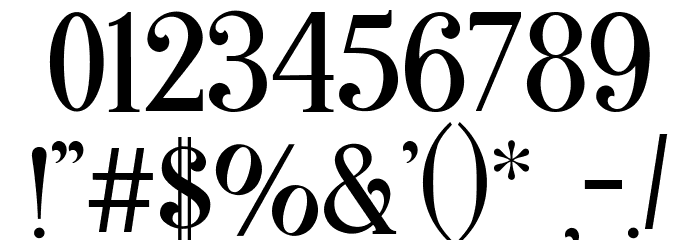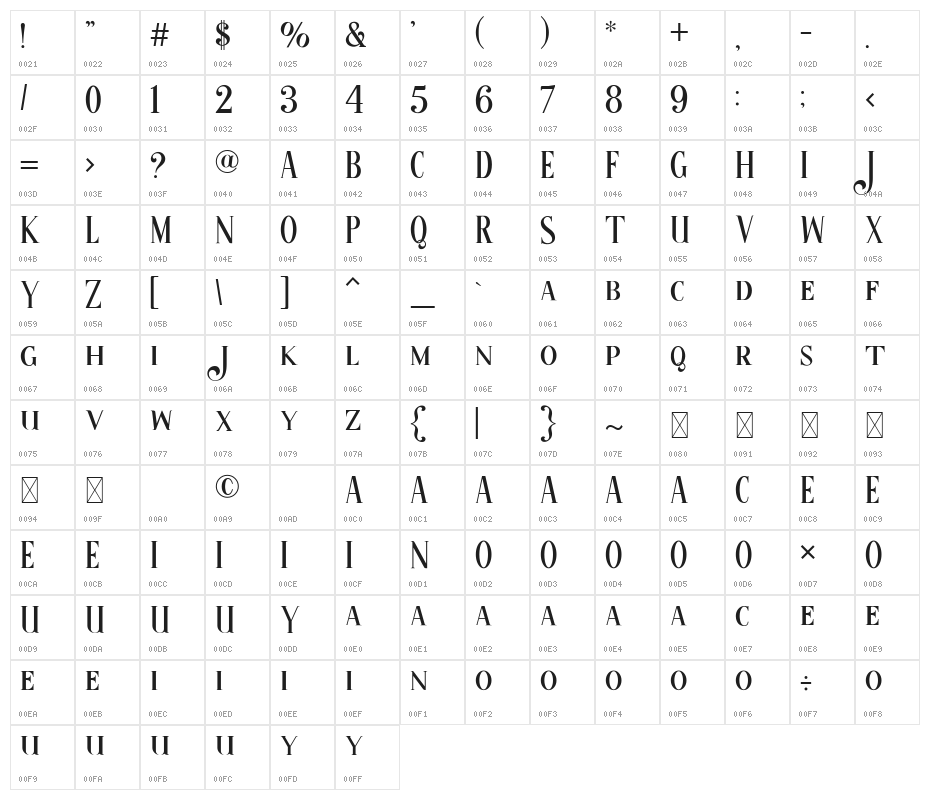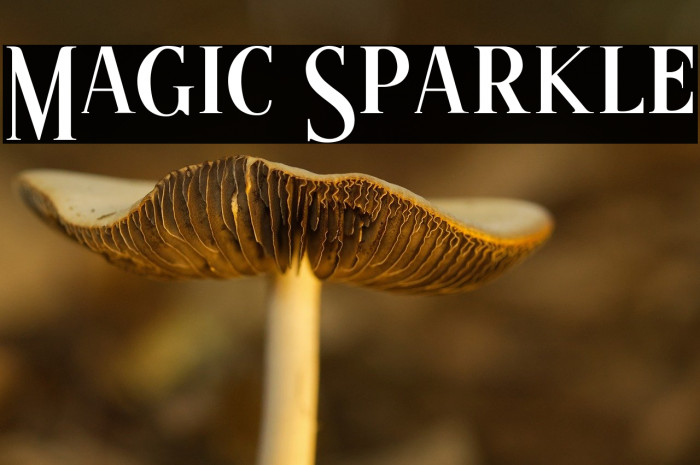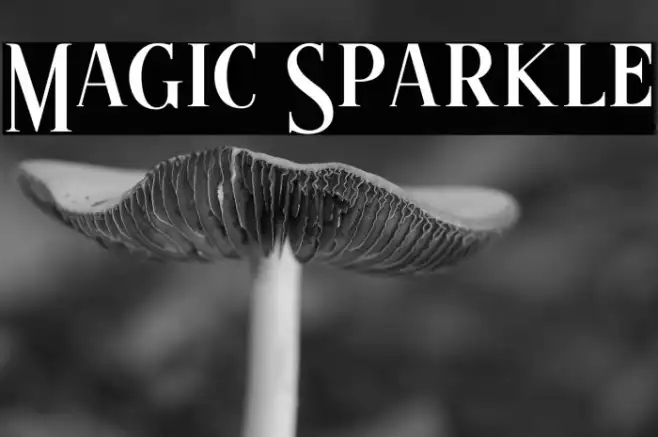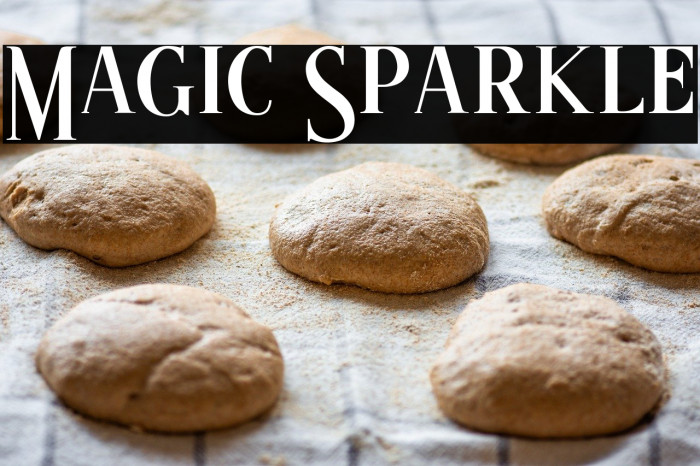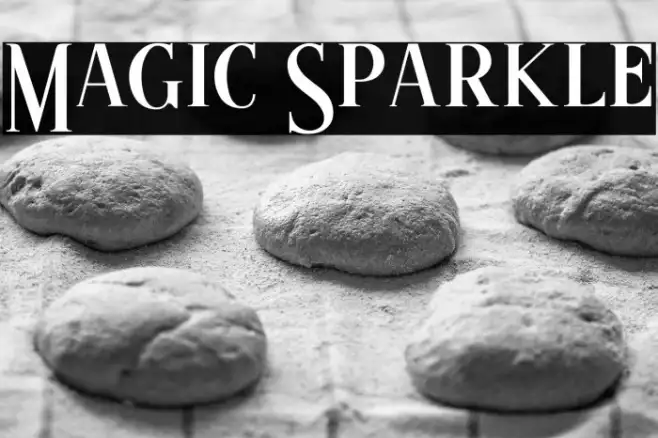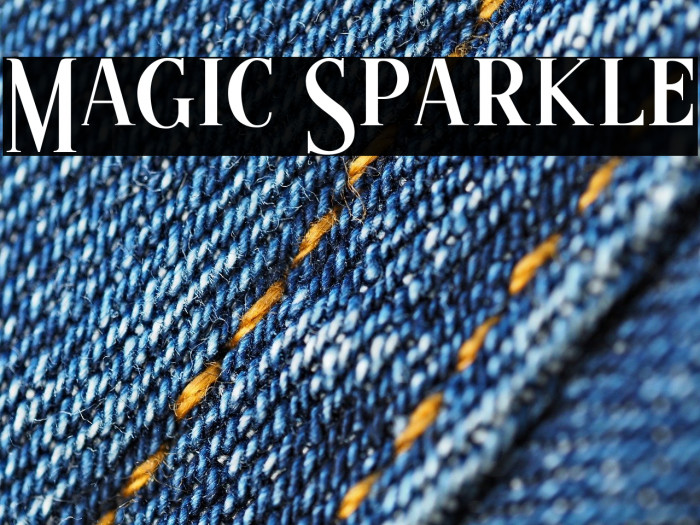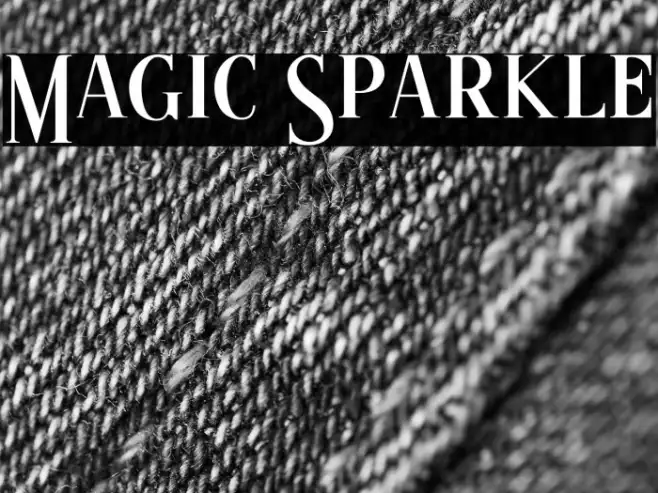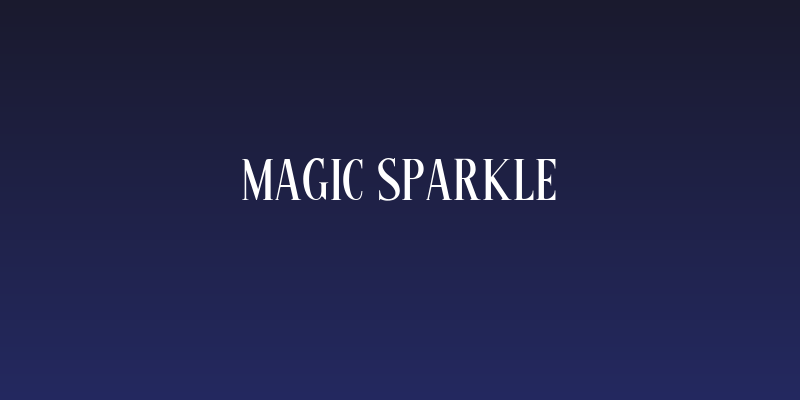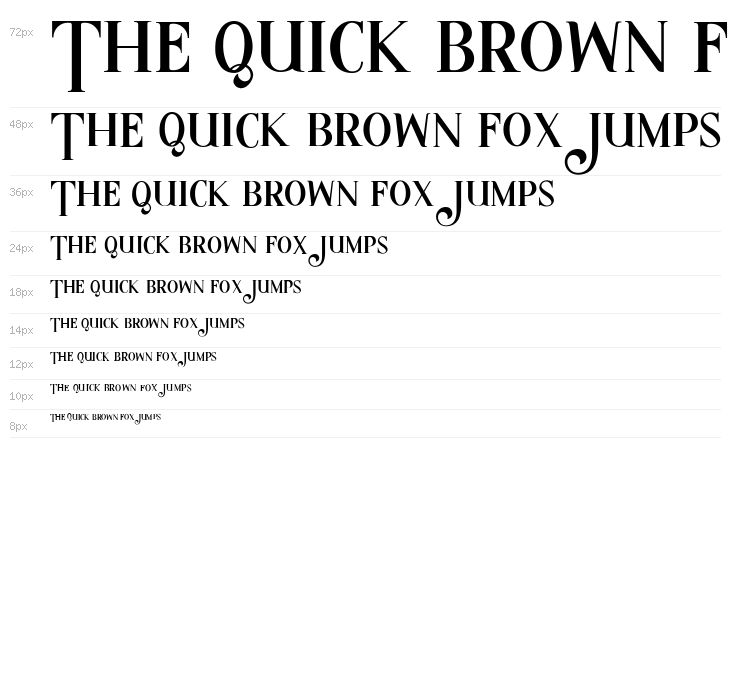
Magic Sparkle Font
Magic Sparkle Description
This font features a classic serif style with elegant, elongated strokes and a refined appearance. The uppercase letters are tall and slender, with a slight flair at the ends of the strokes, giving them a sophisticated and timeless look. The lowercase letters maintain a consistent style, with smooth curves and a balanced weight distribution. The numerals are distinct and easy to read, with a slight decorative touch that complements the overall aesthetic. Special characters are well-integrated, maintaining the font's cohesive design. This font exudes a sense of elegance and tradition, making it suitable for a variety of formal and creative applications.
| Proposed Projects | Ideal for wedding invitations, luxury branding, editorial design, and high-end packaging. |